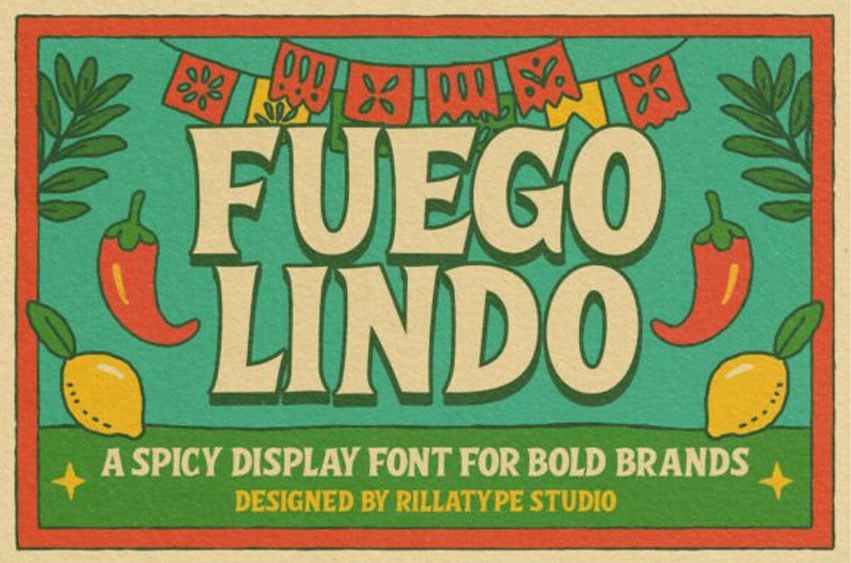
Fuego Lindo Font
Fuego Lindo Font is a bold display typeface inspired by the spirit of Mexican street food, hand-painted signs, and the vibrant energy of local fiestas.
With chunky proportions, irregular curves, and a playful folkloric touch, Fuego Lindo brings a flavorful punch to any design that needs to shout with character.